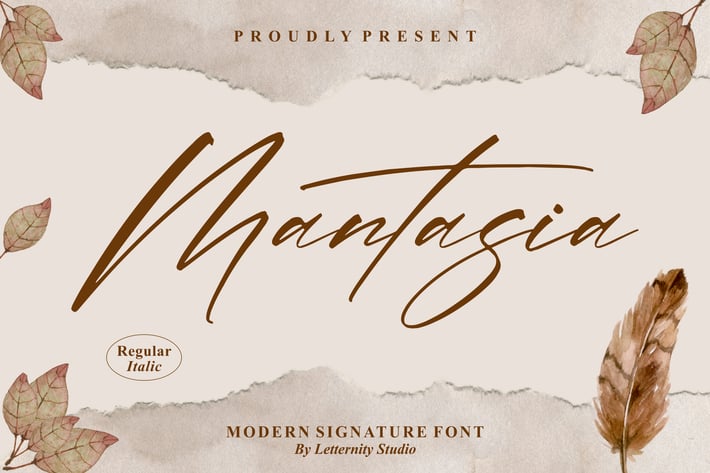
Mantasia Modern Signature Font
Mantasia is an elegant modern signature font that embodies a sophisticated and stylish charm. With its sleek lines and graceful curves, it delivers a premium, handwritten feel, making it perfect for luxury branding, invitations, and high-end editorial designs.
Modern signature font with refined elegance
Includes Regular and Italic styles
Clean and fluid letterforms ideal for chic branding
Versatile for a variety of design projects
Luxury branding and identity
Wedding invitations and event stationery
Fashion and beauty campaign designs
Signature logos and personal branding
High-end editorial layouts and magazine covers
Where sophistication meets style — Mantasia adds a touch of class to any project.*